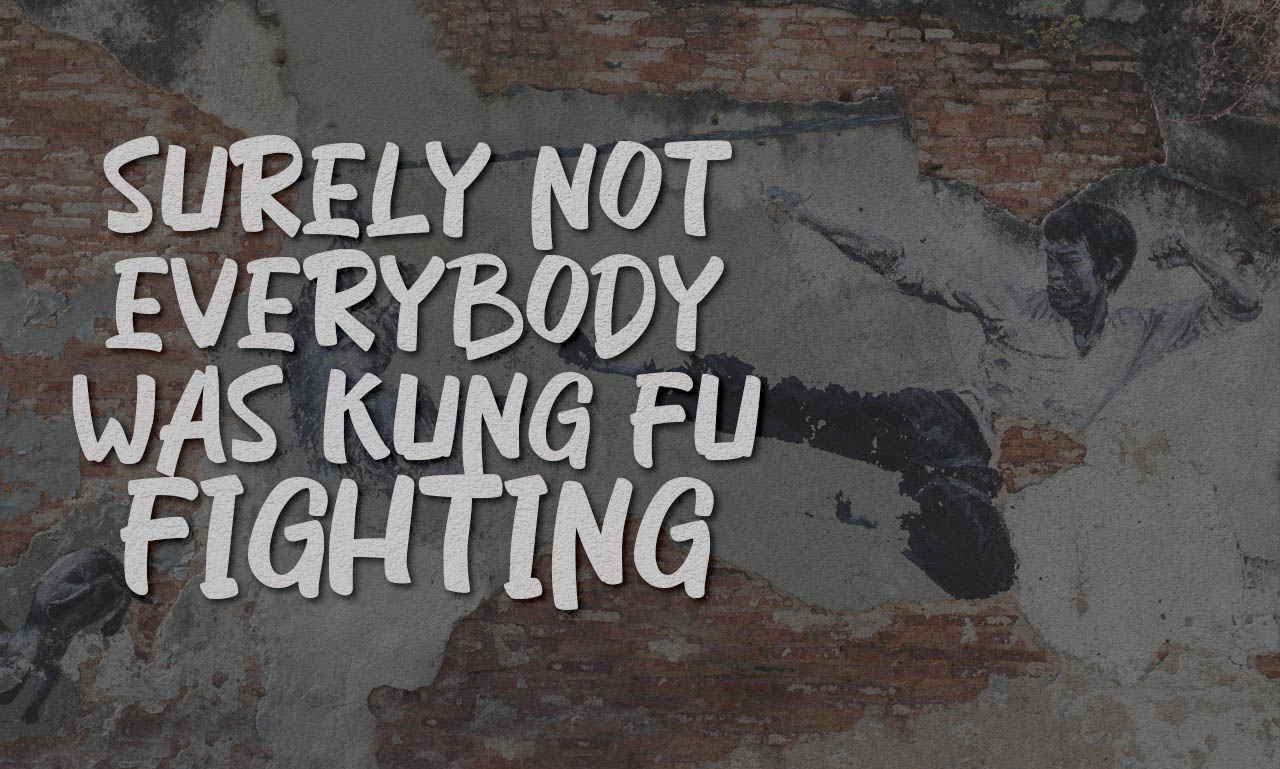
Nastice Display Font
It’s a hand-drawn original brush style font. Great for logos, name tags, handwritten quotes, product packaging, merchandise, social media & greeting cards. And it\\\’s very easy to make t-shirt designs and other products. This font contains a set of capital letters, various punctuation marks, numbers and multilingual support.